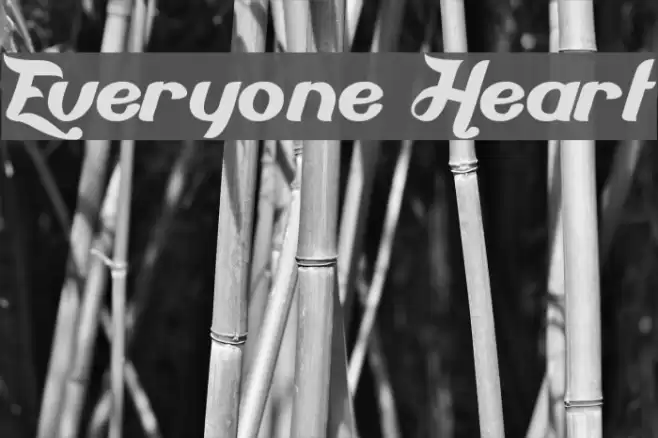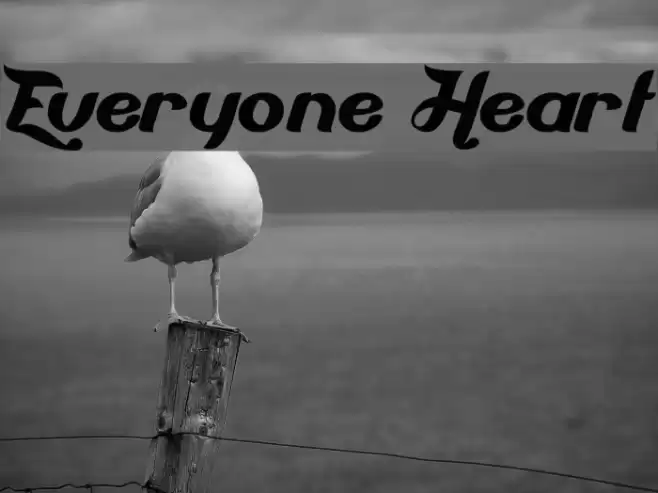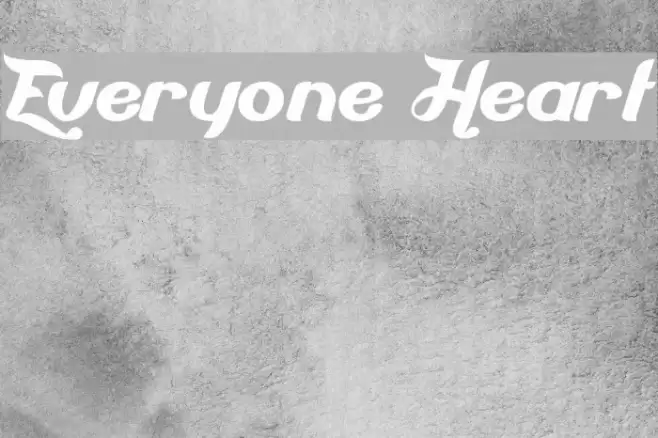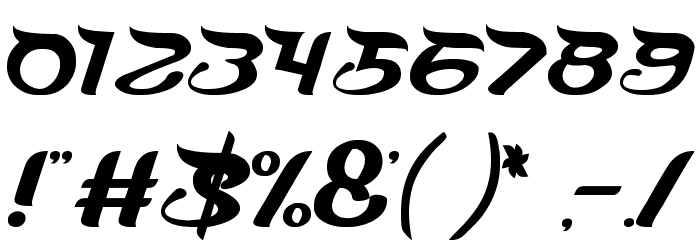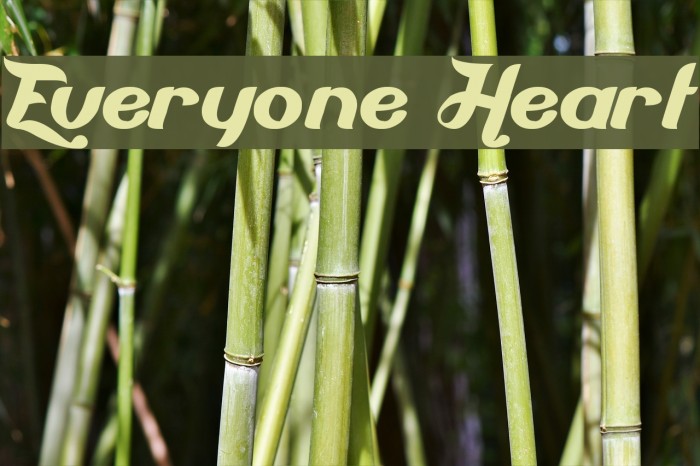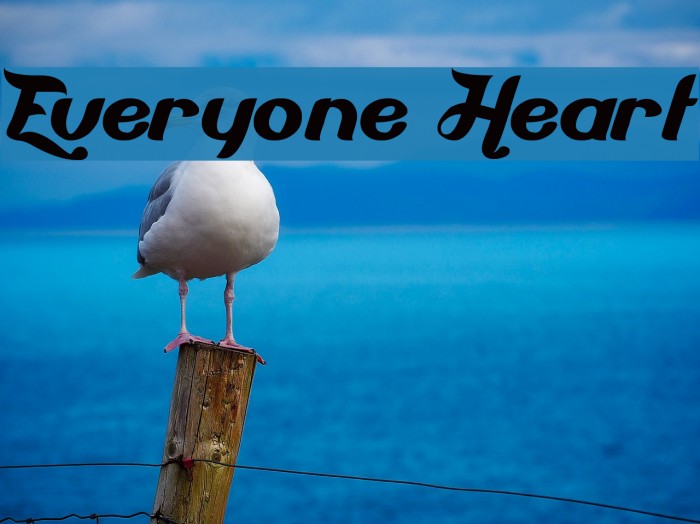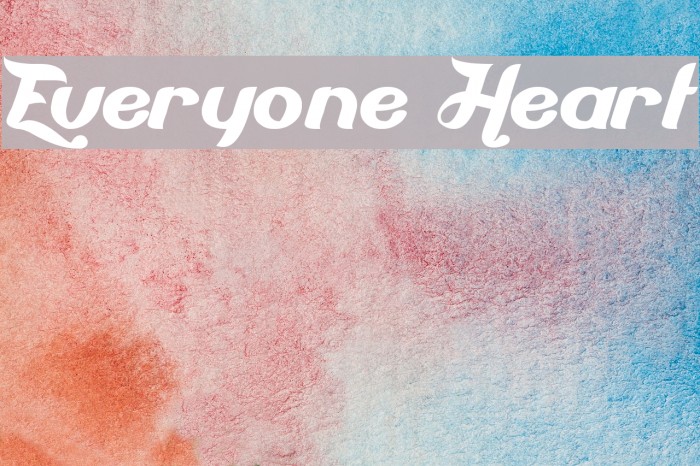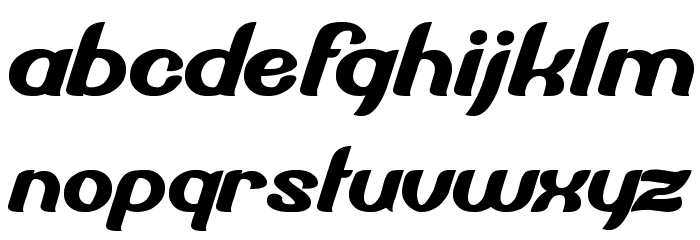
Everyone Heart Font
Everyone Heart Description
This font features a bold and decorative style with a unique flair that combines elements of script and display typography. The uppercase letters are characterized by their ornate and flowing design, with exaggerated curves and swashes that add a sense of elegance and movement. The lowercase letters maintain a consistent boldness, with rounded forms and smooth transitions between strokes. Numbers and special characters are equally stylized, ensuring a cohesive look across all glyphs. The font's overall appearance is both playful and sophisticated, making it suitable for creative and eye-catching designs.
A bold, decorative font with script-like curves and elegant swashes from Uncategorized fonts.
- Proposed Projects: Ideal for wedding invitations, greeting cards, branding projects, and artistic posters.
- Use Case: Logos, Headlines, Artistic projects